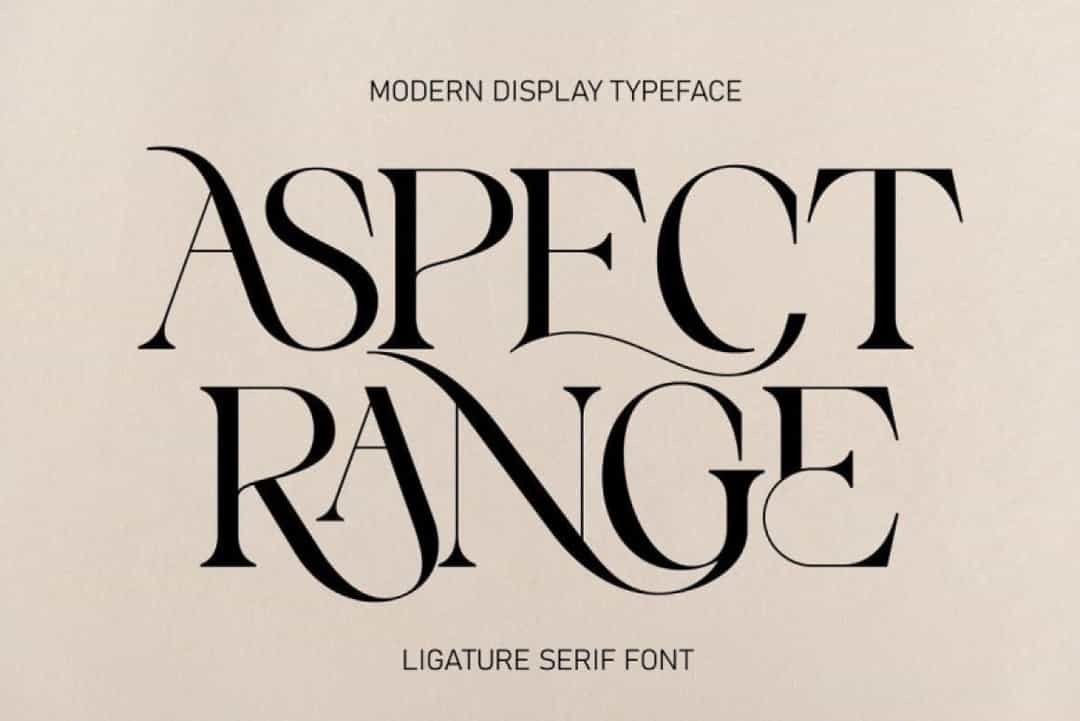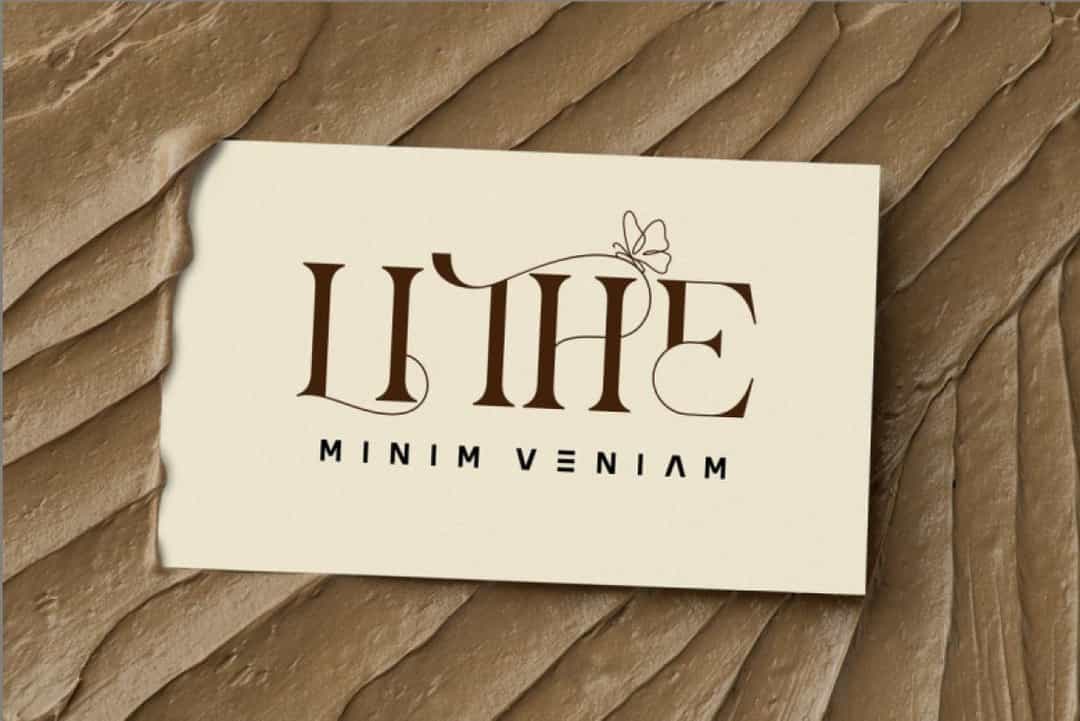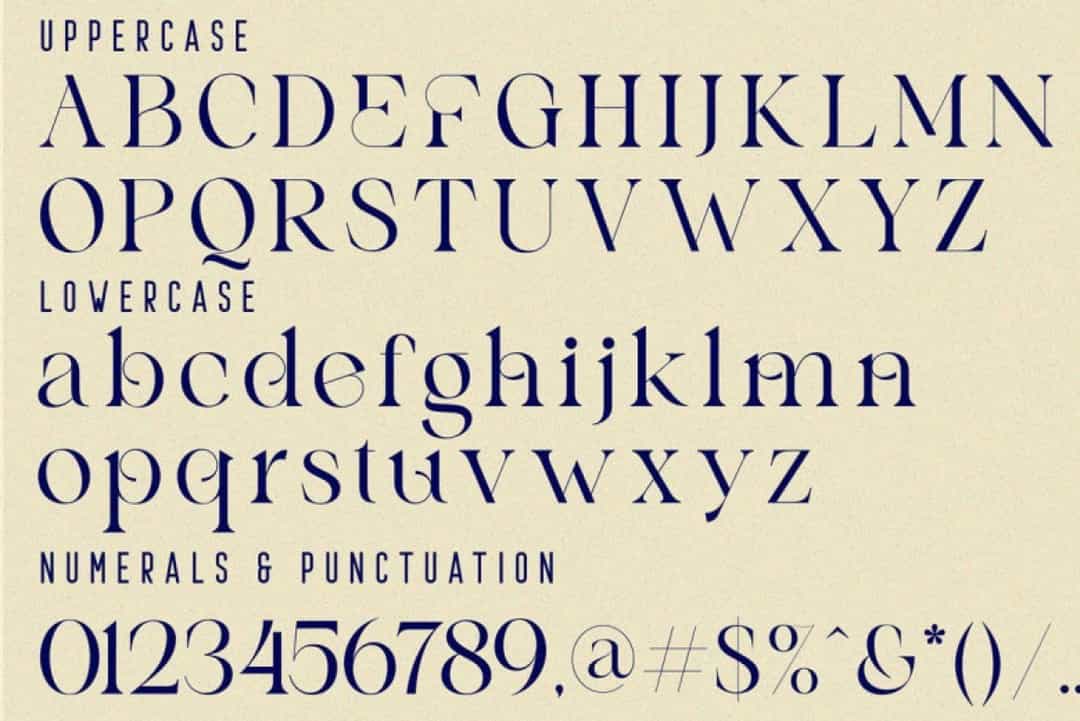
Aspect Range is an elegant and luxurious serif typeface with its own distinct style and contemporary appeal, perfect for wedding invitations, presentations magazine covers and web applications as well as many other design projects.